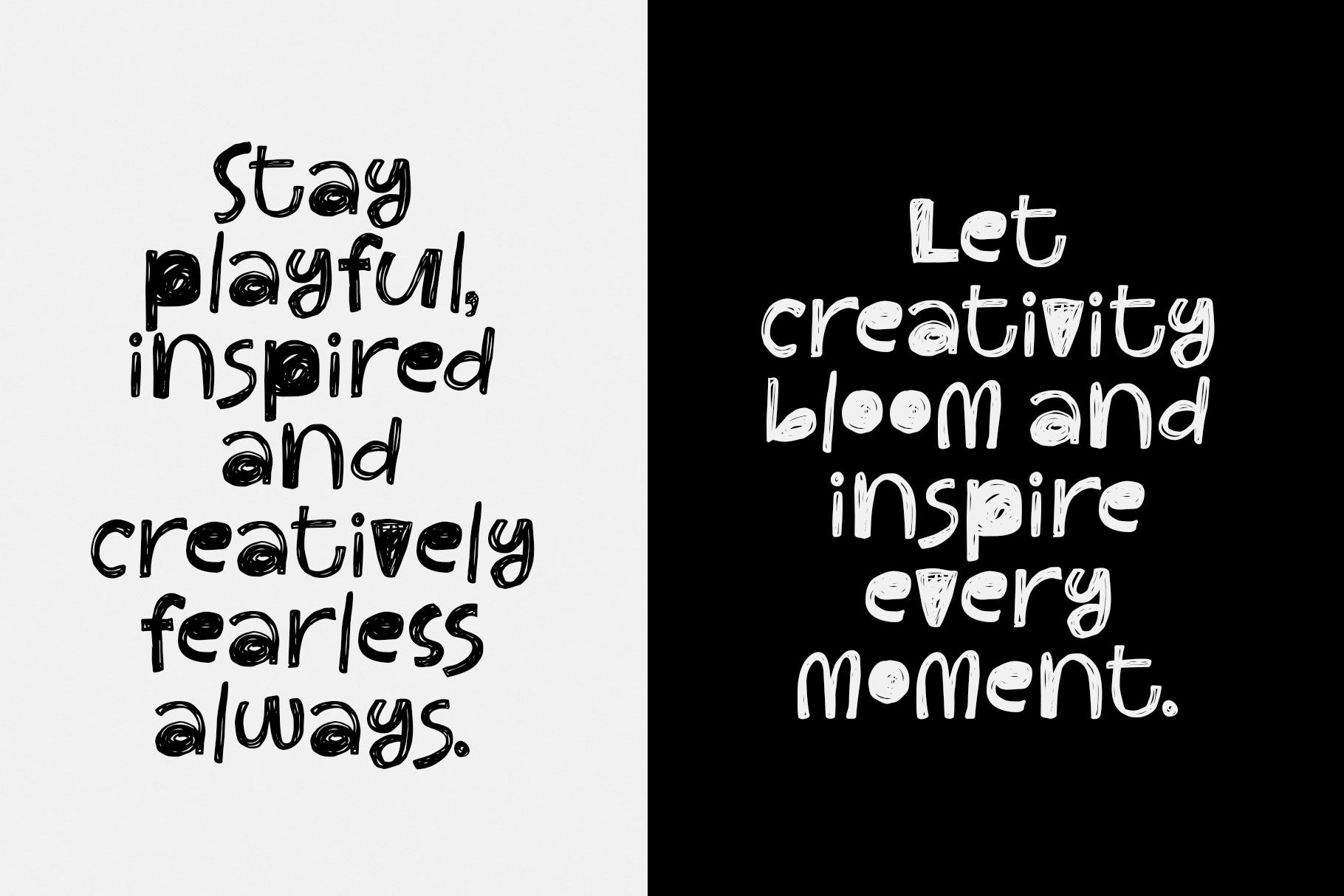
Little Frany is handwritten scribble font with bold, playful, and intentionally imperfect personality. Little frany come with drawn quickly with a thick black marker, giving the typeface an energetic, spontaneous character.
Little Frany is a perfectly choice for any creative endeavor, creating, modern, lifestyle design such as logotype, title, cover, branding, invitations, social media posts, advertisements, printed quotes, product packaging, corporate brand, product designs, labels, watermarks, special events and any other project with scribbble touch.
Little Frany Handwritten Scribble Font